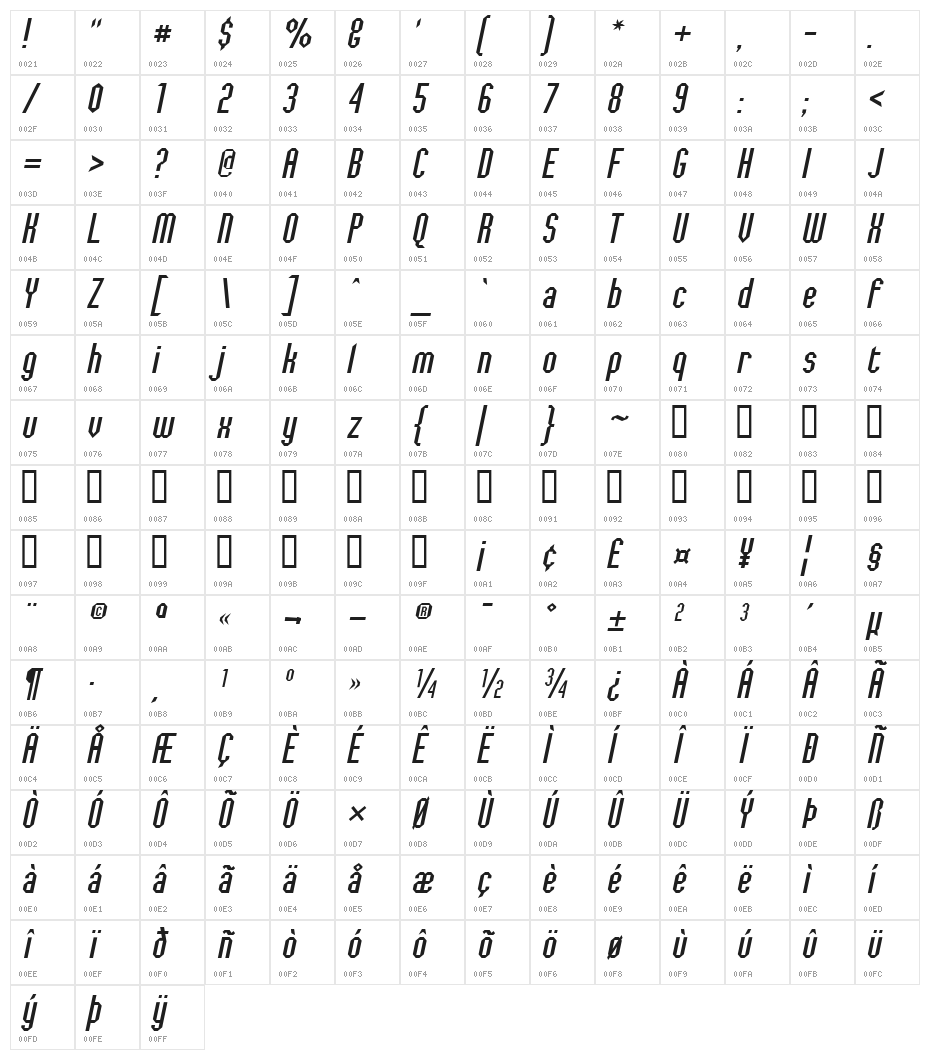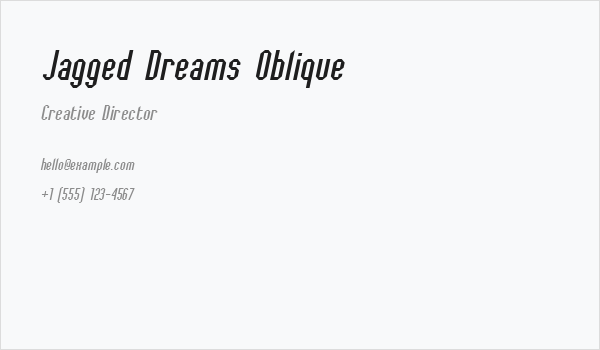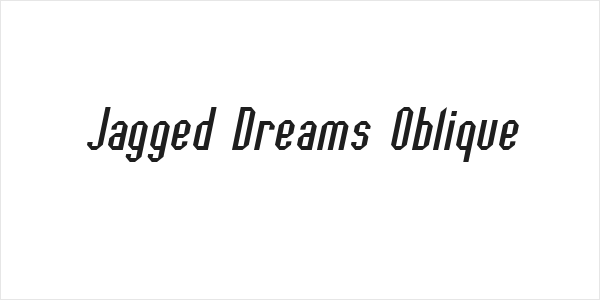
Jagged Dreams Oblique Font
Jagged Dreams Oblique Description
This font features a bold and angular design with a distinct oblique slant, giving it a dynamic and energetic appearance. The characters are sharply defined with a geometric style, characterized by straight lines and pointed edges. The uppercase and lowercase letters maintain a consistent slant, enhancing the font's cohesive look. The numerals and special characters follow the same angular and slanted design, ensuring uniformity across all glyphs. This font's unique style makes it stand out, ideal for projects that require a modern and edgy aesthetic.
| Proposed Projects | Ideal for branding, posters, album covers, and any design needing a modern, edgy look. |